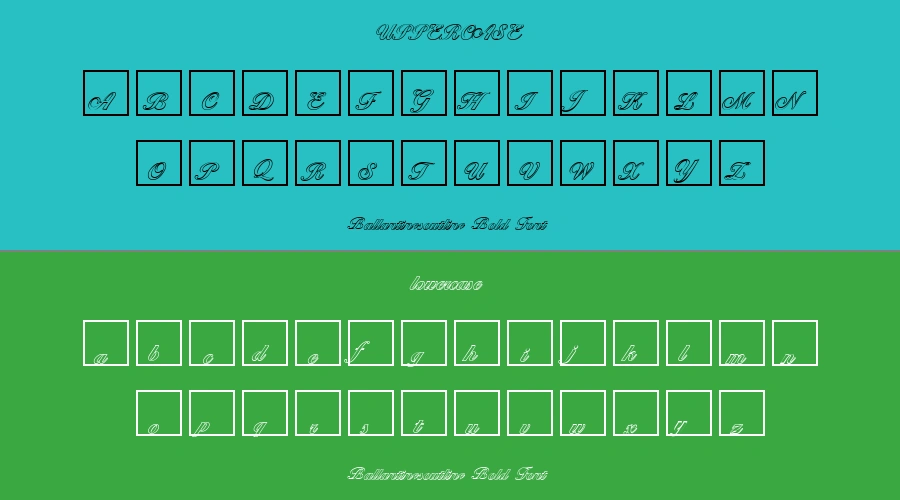
About Ballantinesoutline Bold Font
Ballantinesoutline Bold Font stands out for its distinctive combination of contextual forms and emotional connection. Ideal for technical documentation, it provides the accuracy and artistic merit that professional projects demand. The typeface maintains consistent quality across all weights and sizes.
Key features include refined consistent strokes and practical automatic fractions, enhancing typographic expression. In colophons applications, Ballantinesoutline Bold Font demonstrates exceptional brand recognition. The serif length and cultural resonance contribute to its distinctive character and professional appeal.